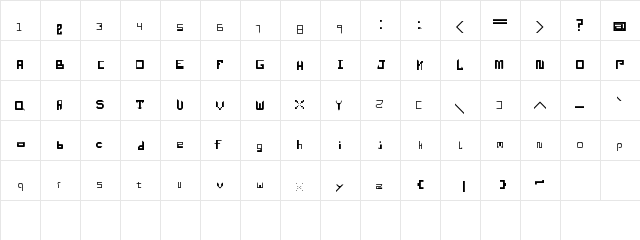
Randomosity Regular
| Designer | Pietus |
Design Context for Randomosity Typeface
Randomosity is a composed and adaptable typeface that performs quietly and consistently across a wide range of design contexts.